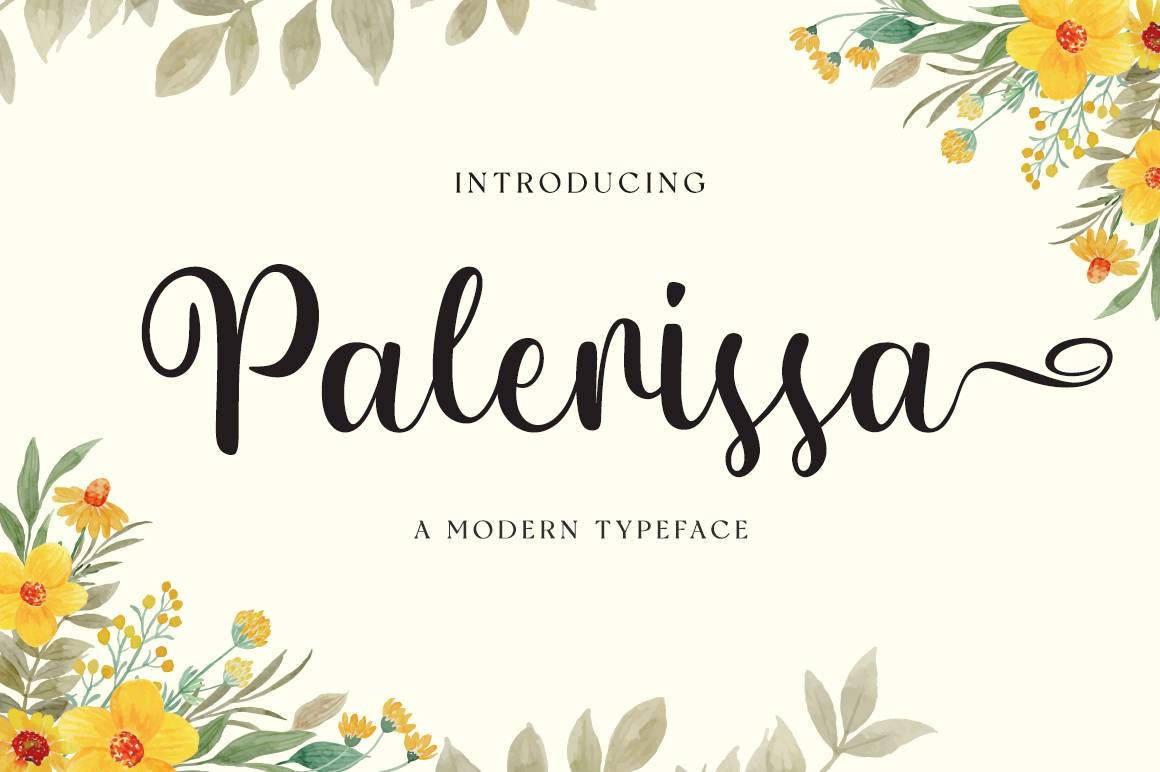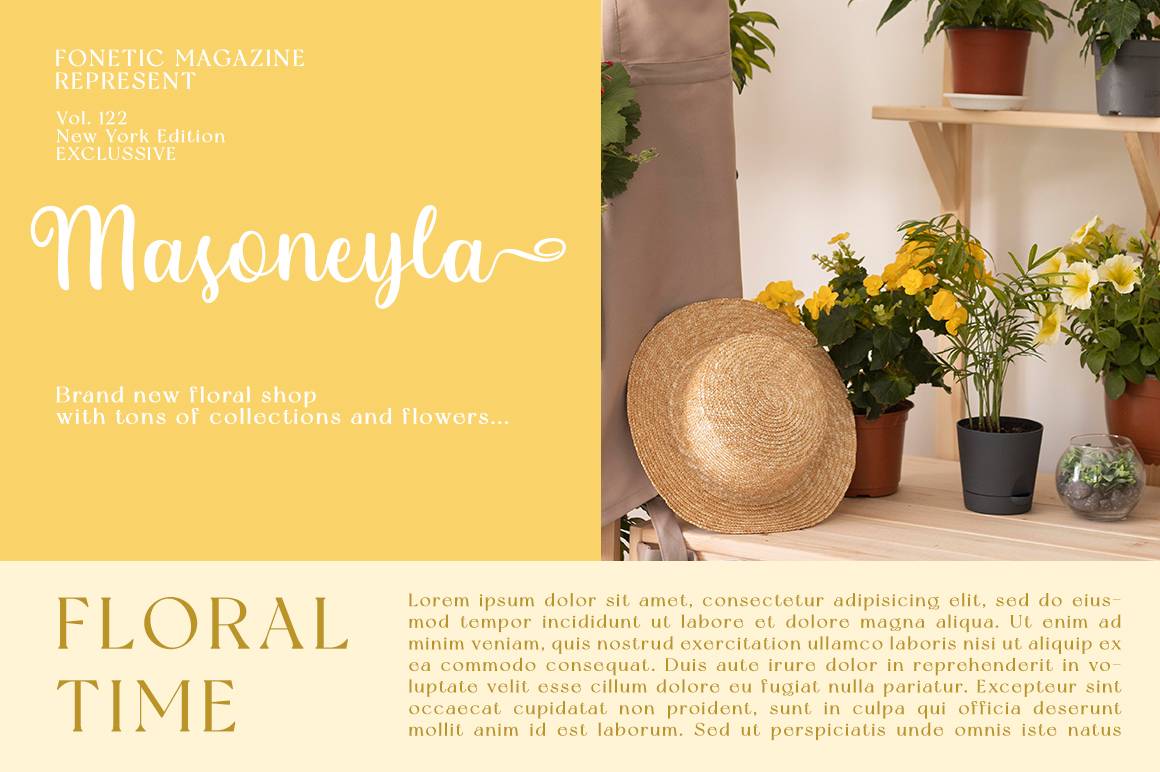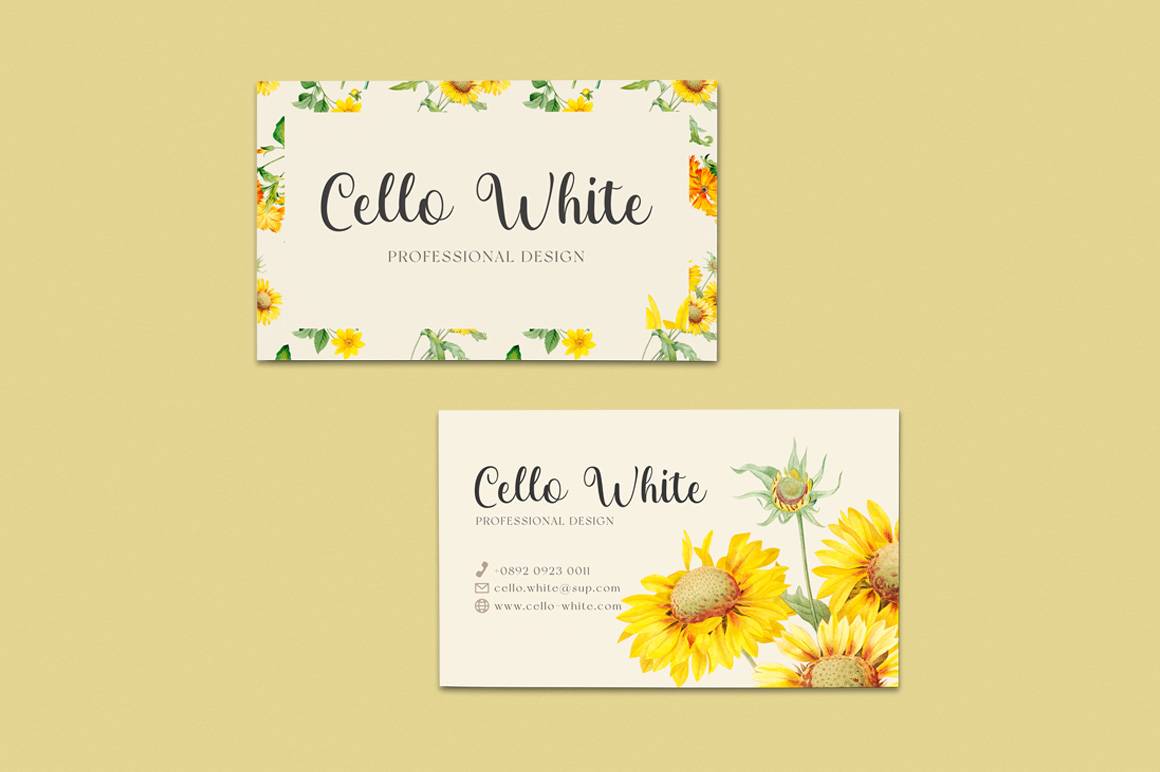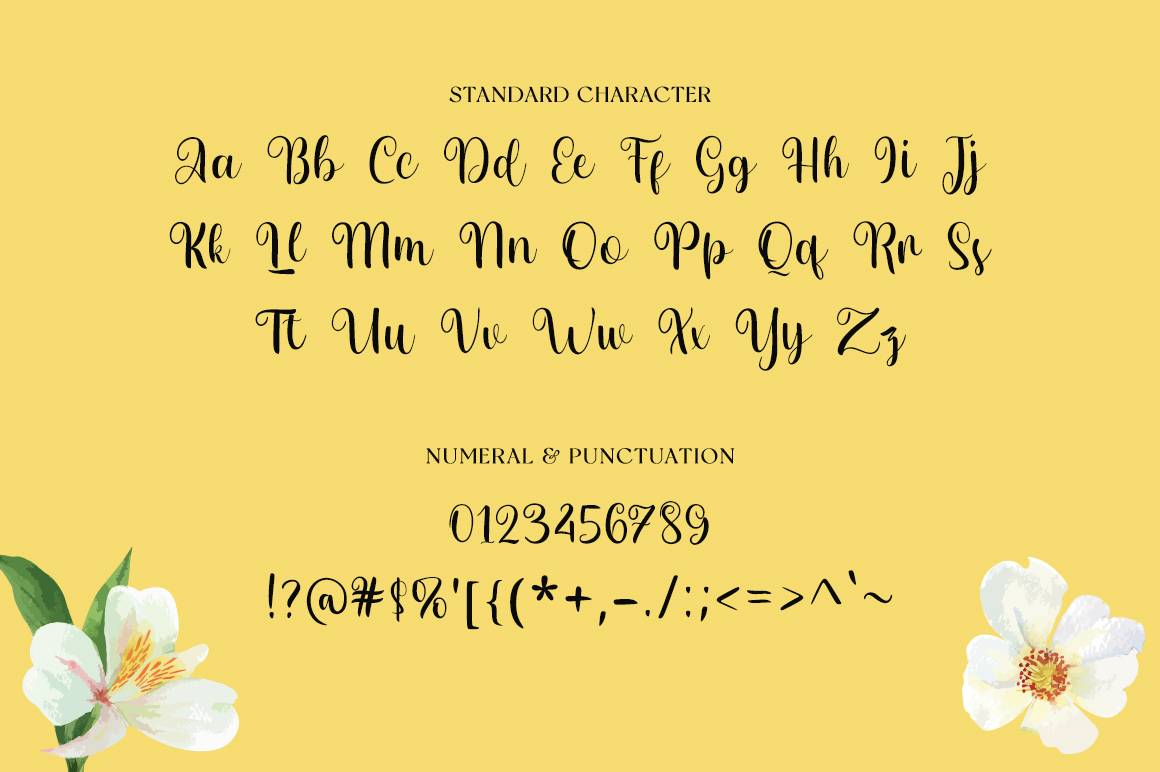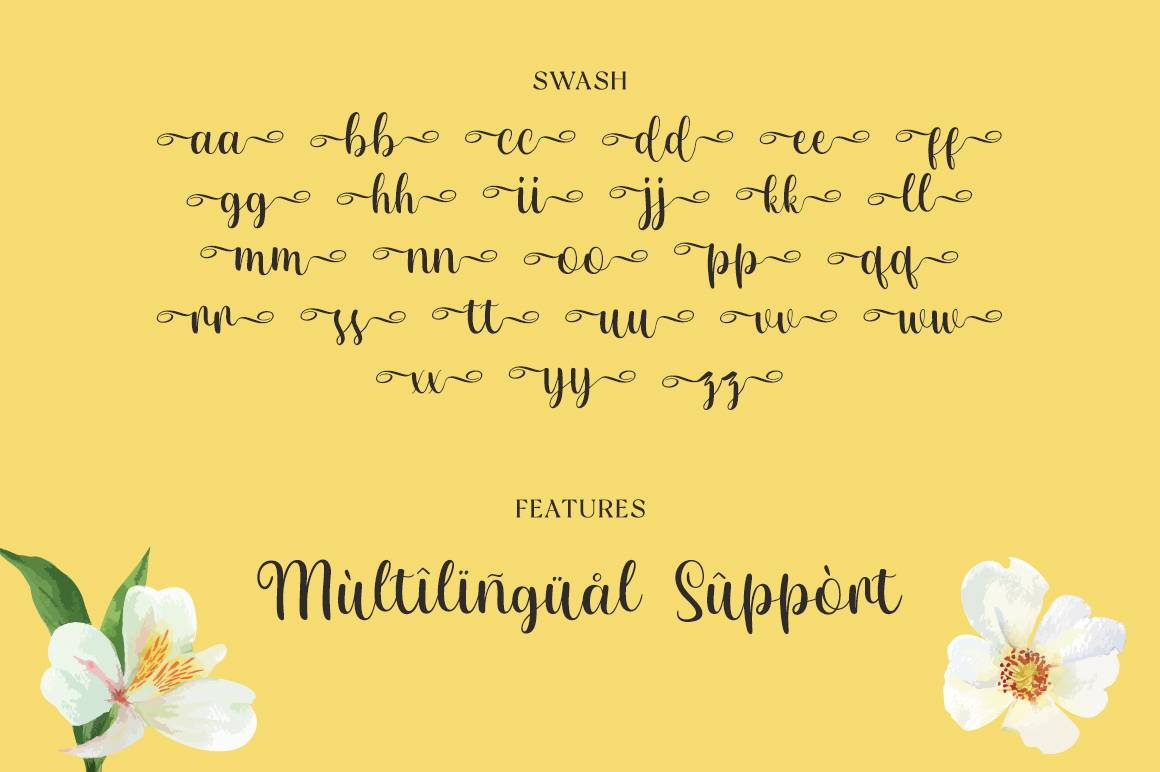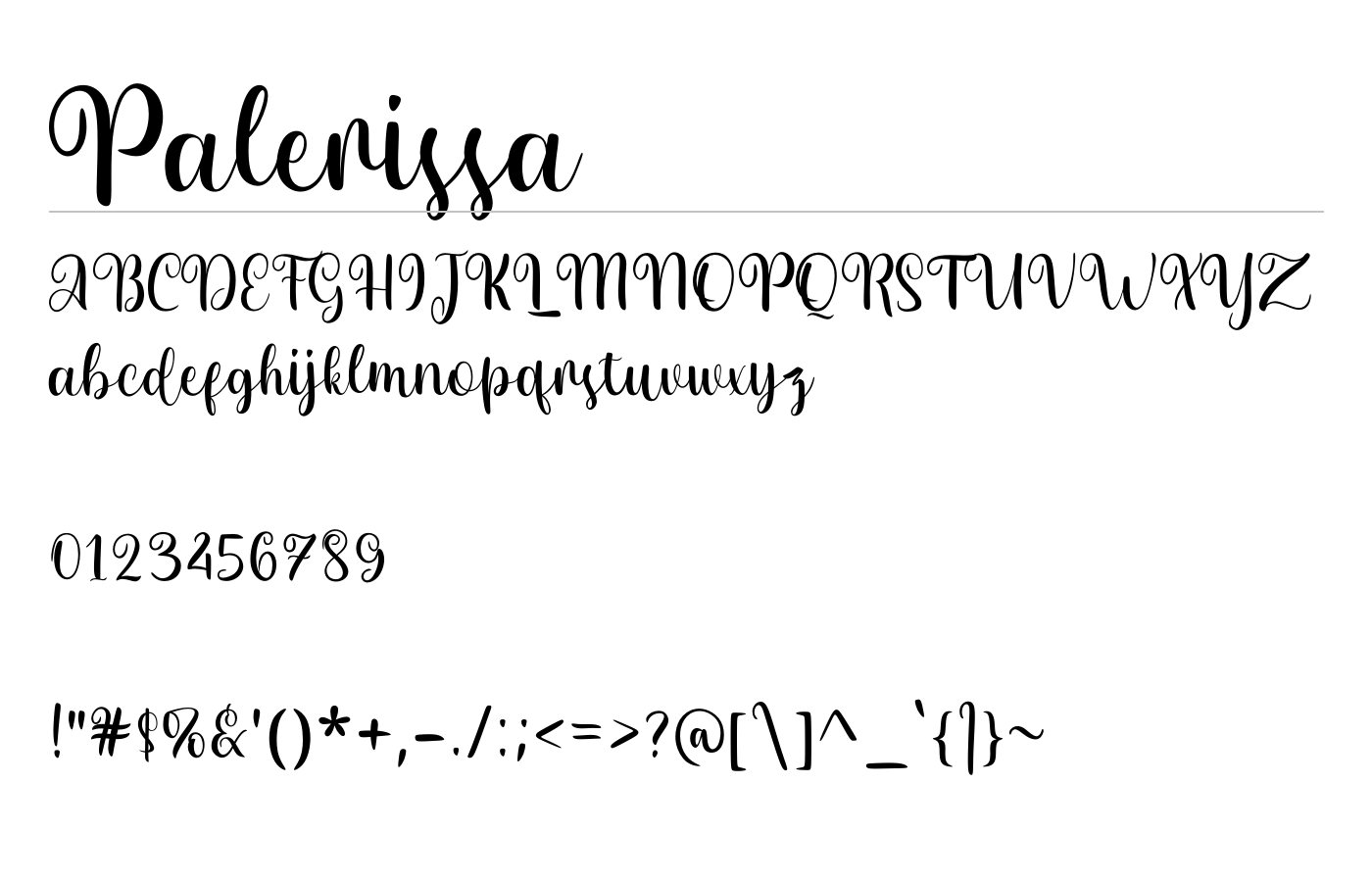
Palerissa is a charming script font with a lively, handwritten feel that combines elegant curves and playful loops. Its medium weight and moderate contrast create a balanced and readable style, perfect for adding a personal, artistic touch to designs. This font works beautifully for invitations, branding, and any creative project that benefits from a warm and friendly yet sophisticated look.
Palerissa Font
About Palerissa Font
| Font family | Palerissa Font |